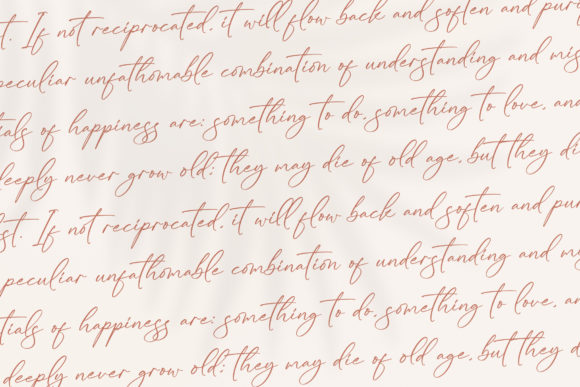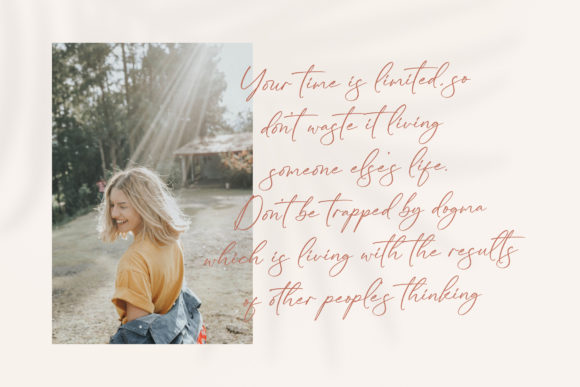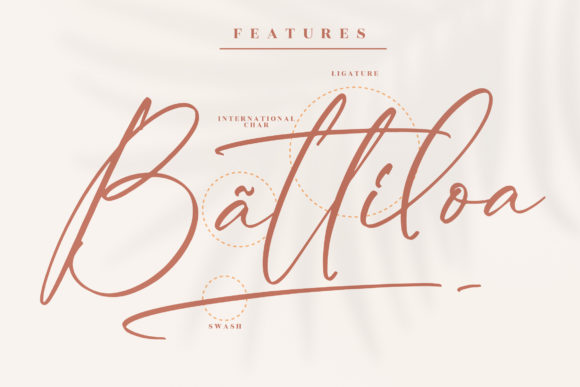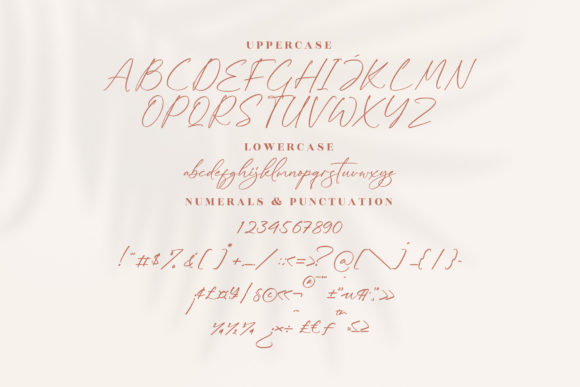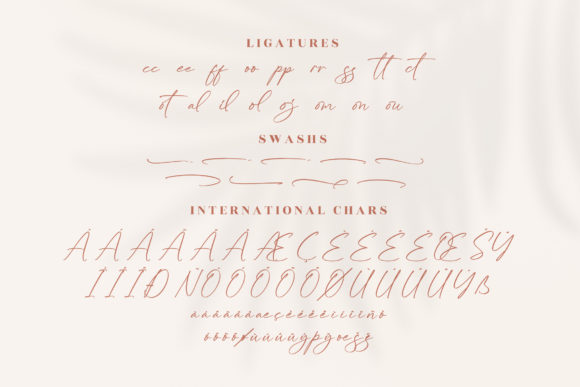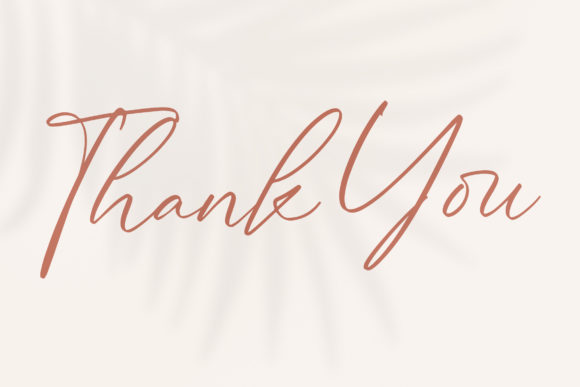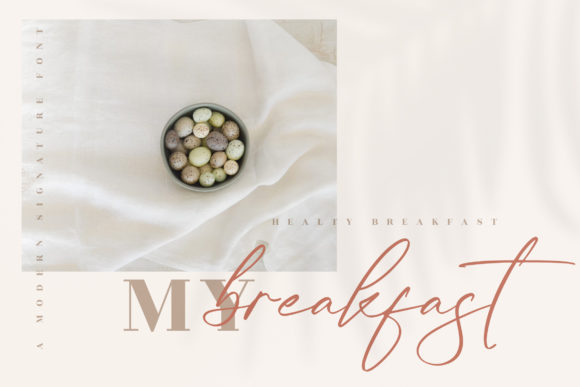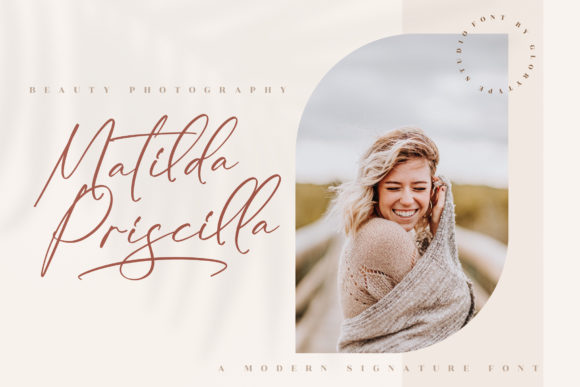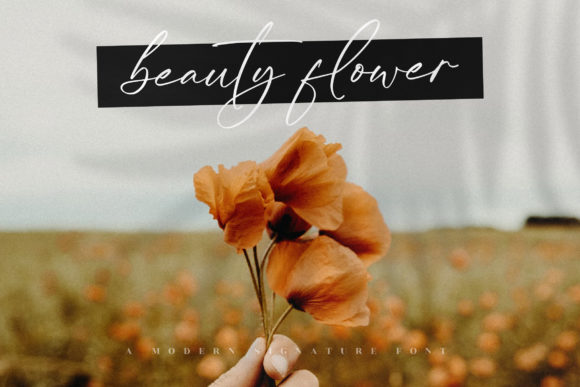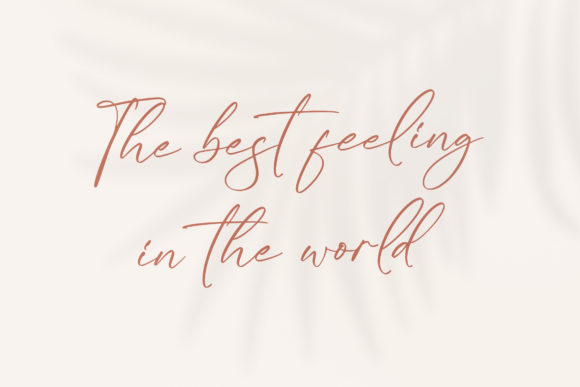
Kaldista Project Font
About Kaldista Project Font
The Kaldista Project is a modern signature font crafted by Glorytype Studio, tailored for a variety of projects. Its versatility makes it suitable for an array of design applications, including logos, branding projects, homeware designs, product packaging, mugs, quotes, posters, shopping bags, t-shirts, book covers, name cards, invitation cards, greeting cards, labels, photography, watermarks, special events, and more. With its beautiful script taste, the Kaldista Project is designed to bring a touch of elegance and sophistication to your creative endeavors.
Whether you’re working on a brand identity, promotional materials, or personal projects, the Kaldista Project’s modern signature style adds a contemporary and refined flair. Its adaptability allows it to seamlessly integrate into different design contexts, ensuring a cohesive and visually appealing outcome.
This font serves as a versatile tool for enhancing the aesthetic appeal of your projects, infusing them with a beautiful script taste. Its application spans from digital platforms to physical products, making it a valuable asset in your design toolkit. The Kaldista Project becomes more than just a font; it becomes a signature element that elevates the overall elegance of your creations.
In summary, the Kaldista Project is a modern signature font designed for diverse projects that demand a beautiful script taste. Whether you’re crafting a brand identity or adding a personal touch to your creations, this font from Glorytype Studio promises to bring sophistication and style to your logos, packaging, quotes, and beyond. Let the Kaldista Project be the signature font that enhances the beauty of your various design projects.